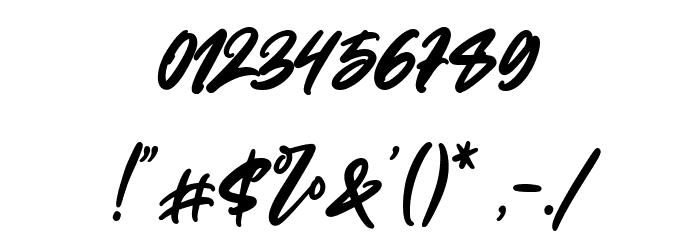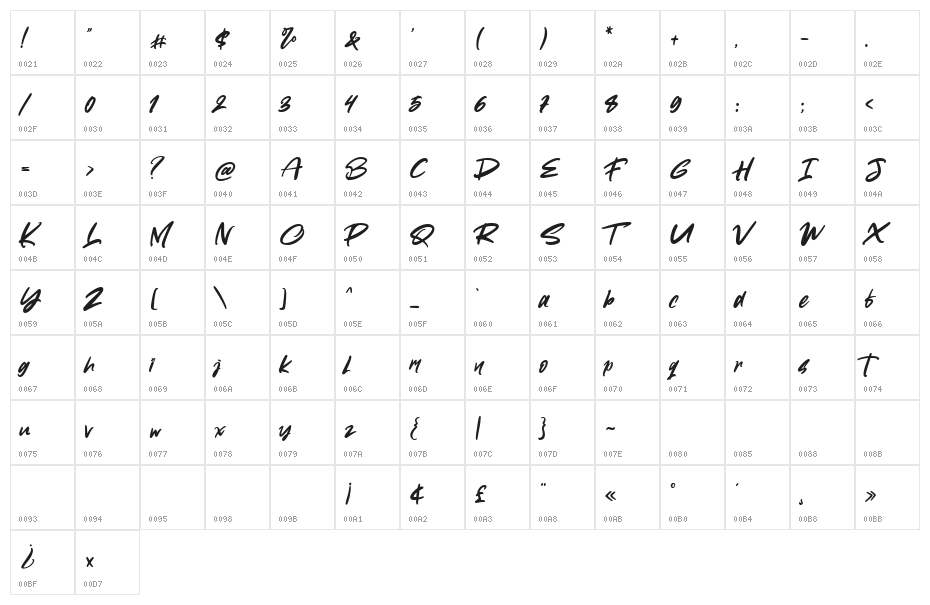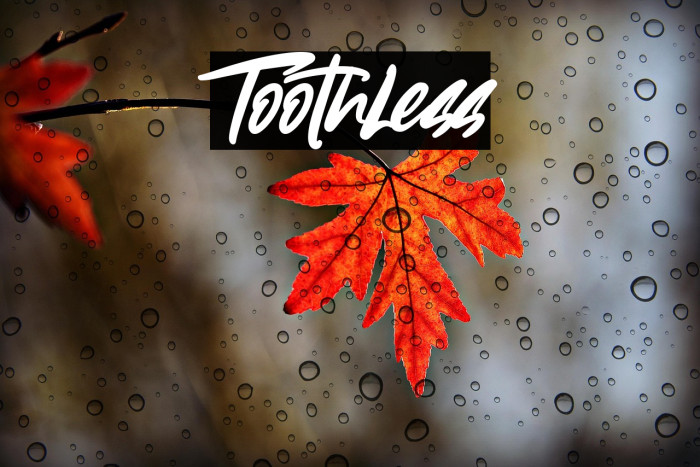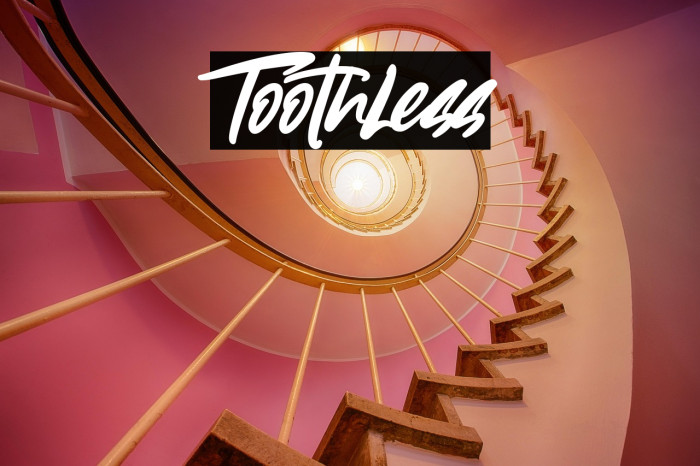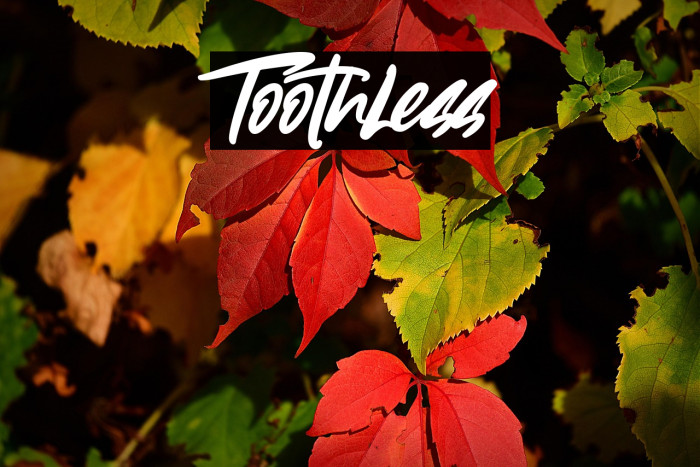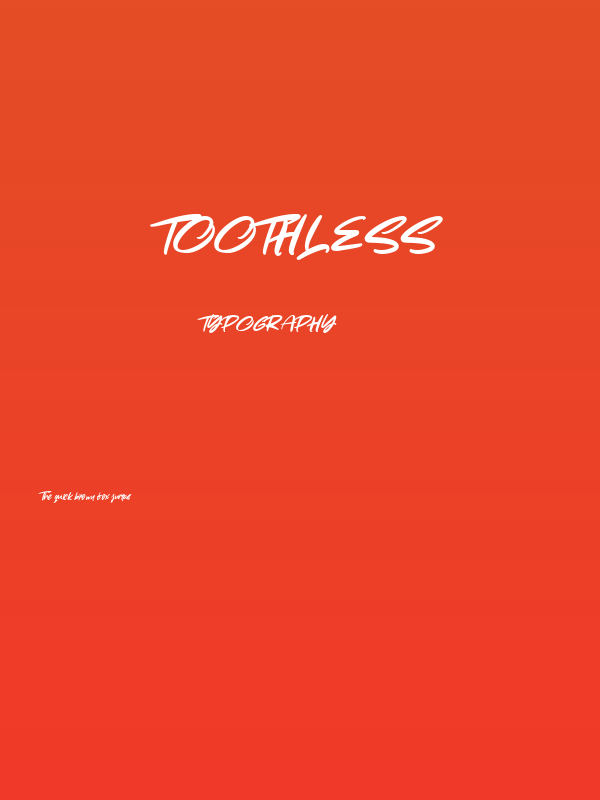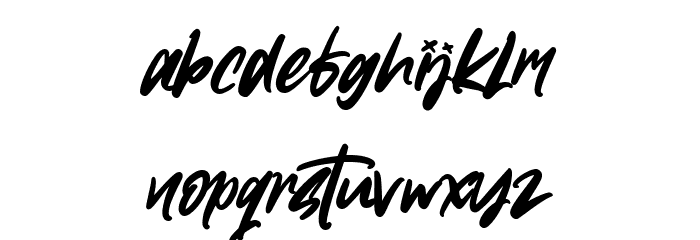
Toothless Font
Toothless Description
This font features a bold and dynamic script style with a handwritten appearance. The letters are connected, giving it a fluid and continuous look, reminiscent of casual handwriting with a touch of elegance. The strokes are thick and consistent, providing a strong presence on the page. The uppercase letters are slightly more formal, while the lowercase letters maintain a playful and approachable feel. The numerals and special characters are designed to match the overall style, ensuring a cohesive look across all text elements.